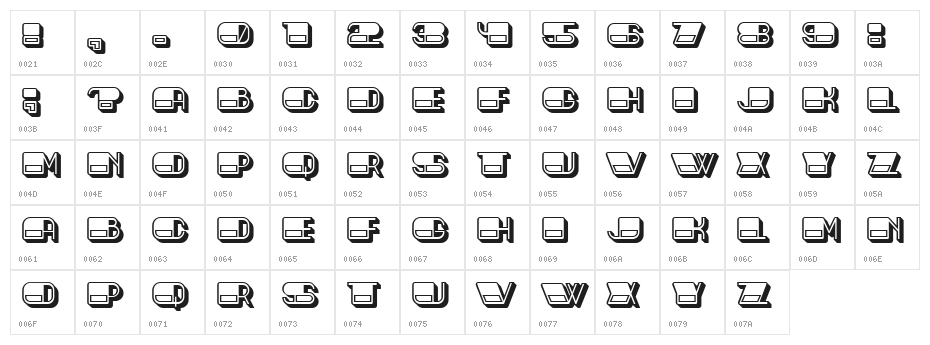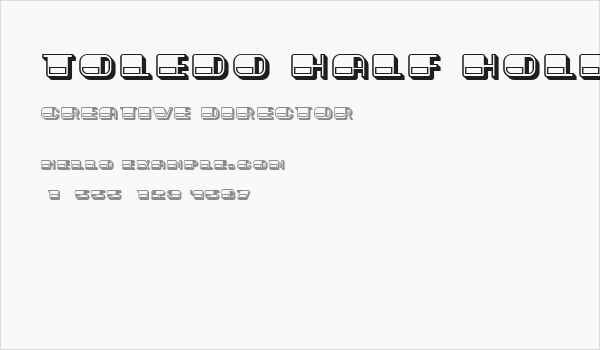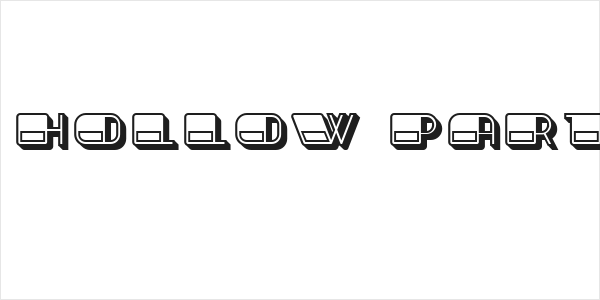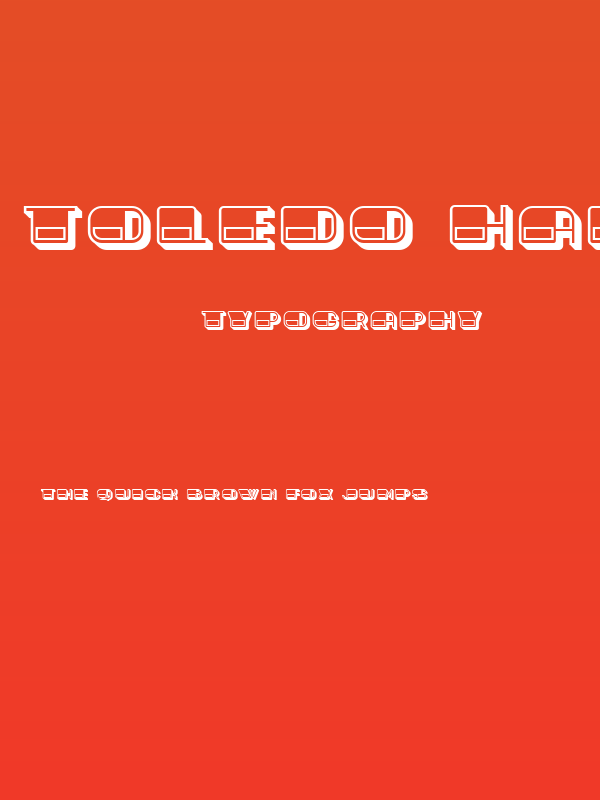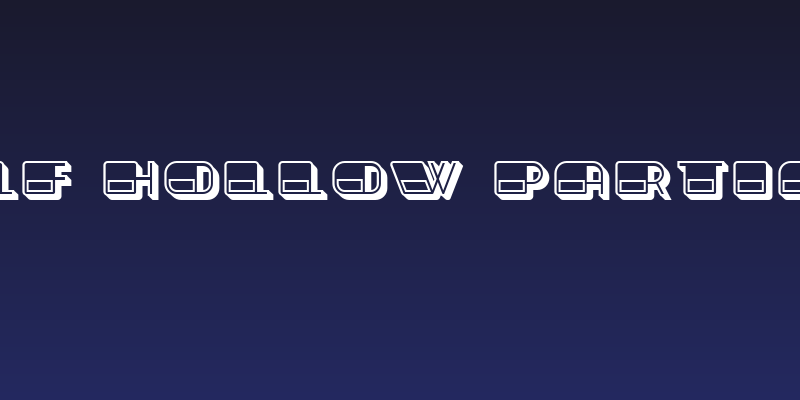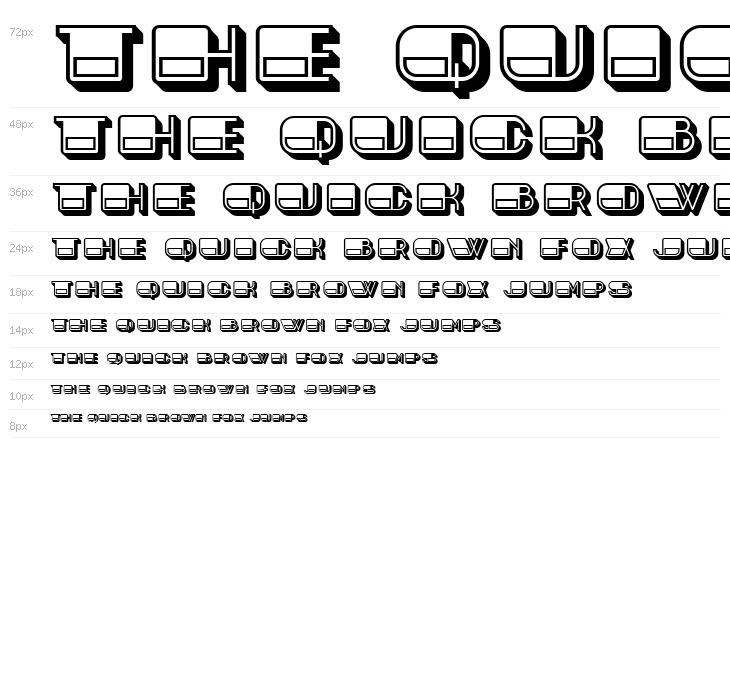
Toledo Half Hollow Partial Regular Font
Toledo Half Hollow Partial Regular Description
This font features a unique and bold design with a half-hollow style, where each character is partially filled, creating a striking visual effect. The geometric shapes and sharp angles give it a modern and futuristic appearance. The uppercase and lowercase letters maintain a consistent style, with the numbers and special characters following the same design principles. The font's distinct look makes it stand out, ideal for projects that require a strong visual impact.
| Use Case | Logos, Headlines |
| Proposed Projects | Ideal for futuristic branding, tech-related logos, and eye-catching headlines. |